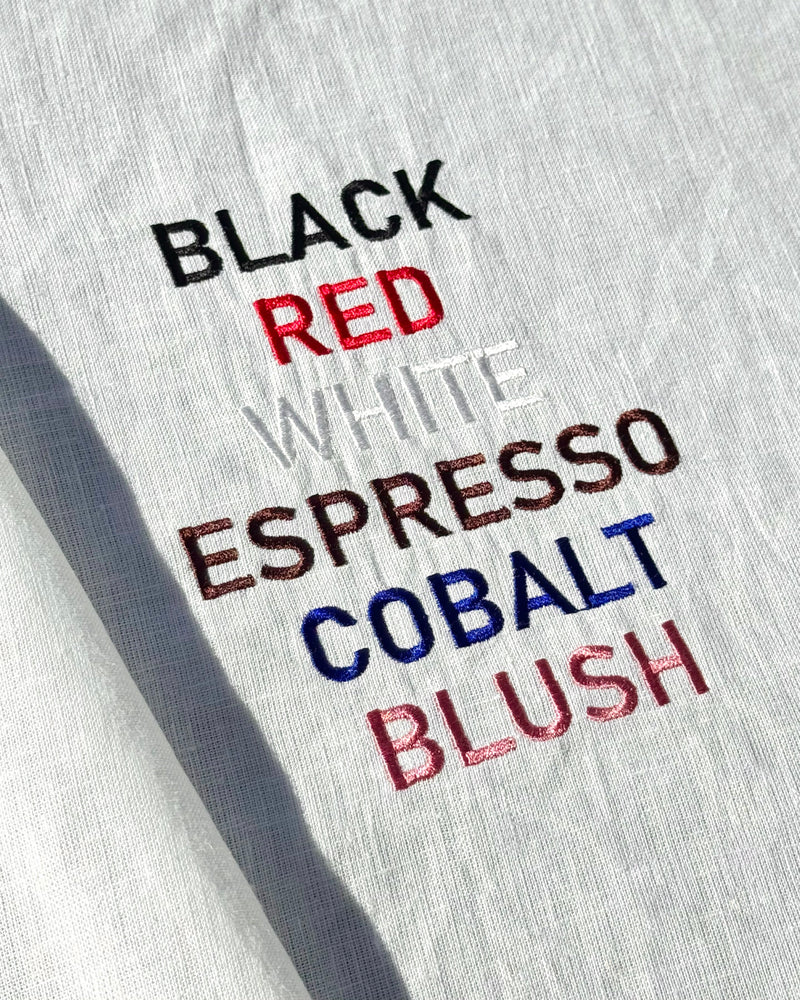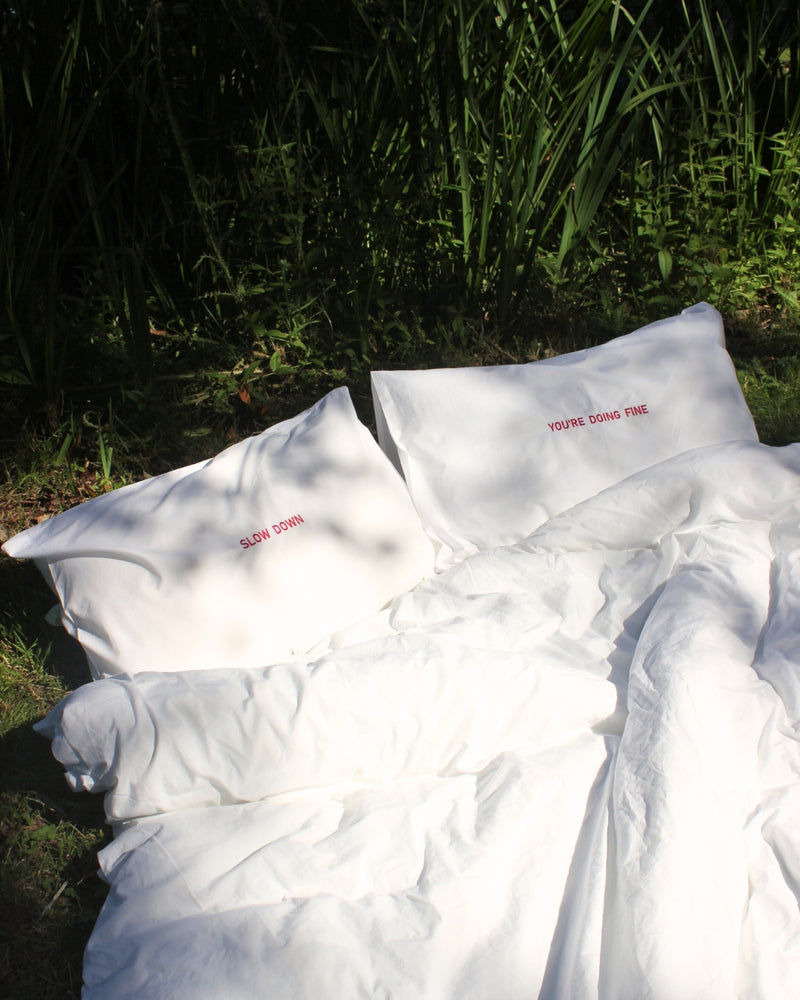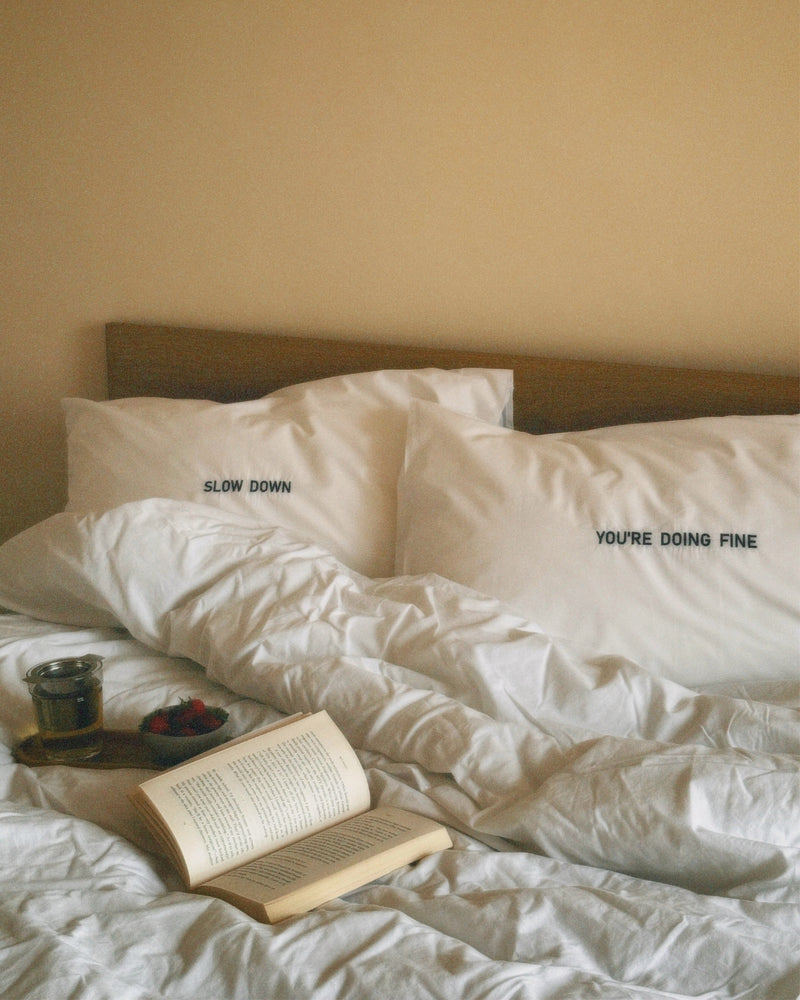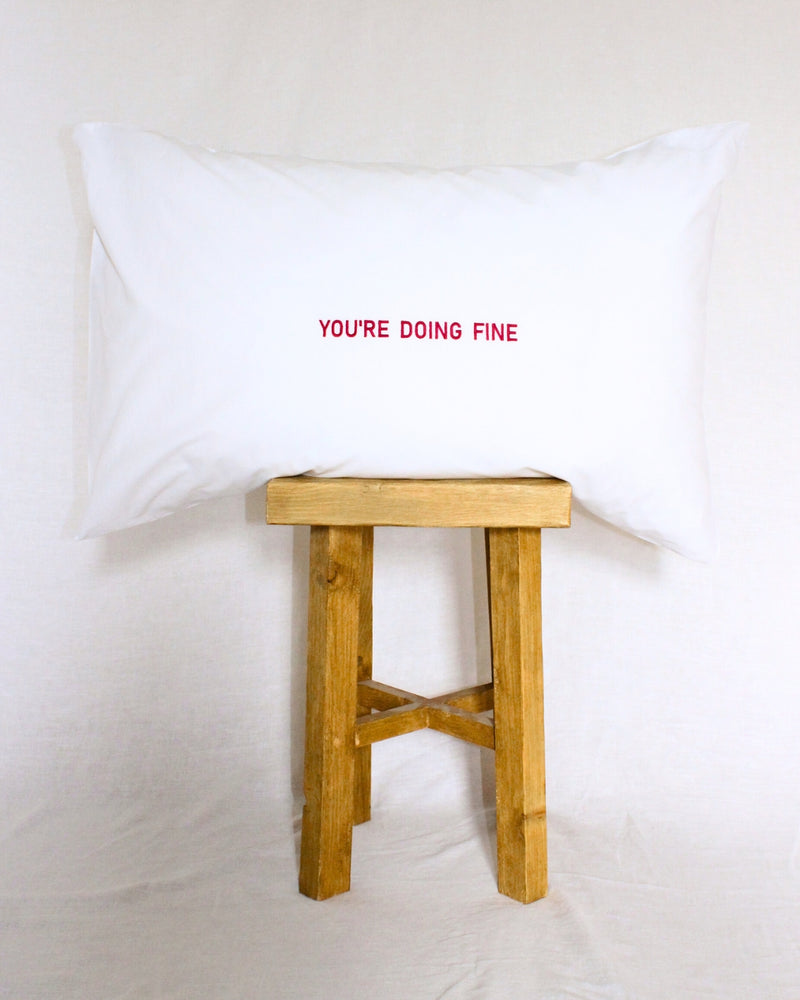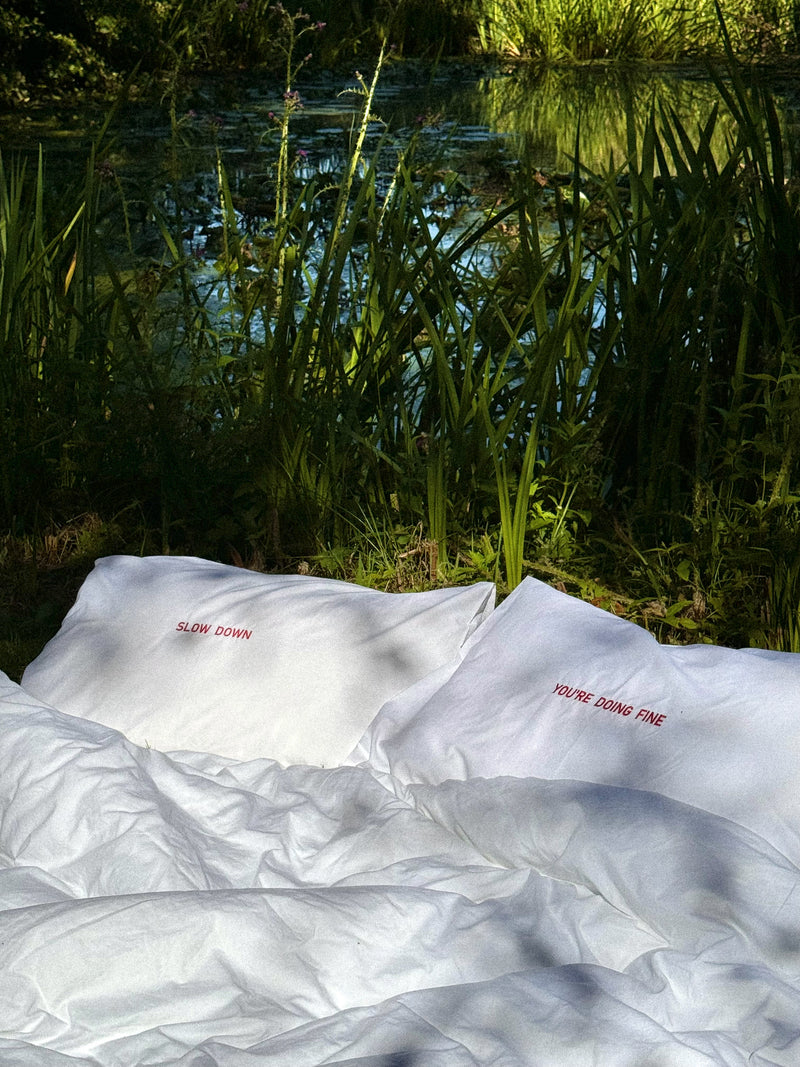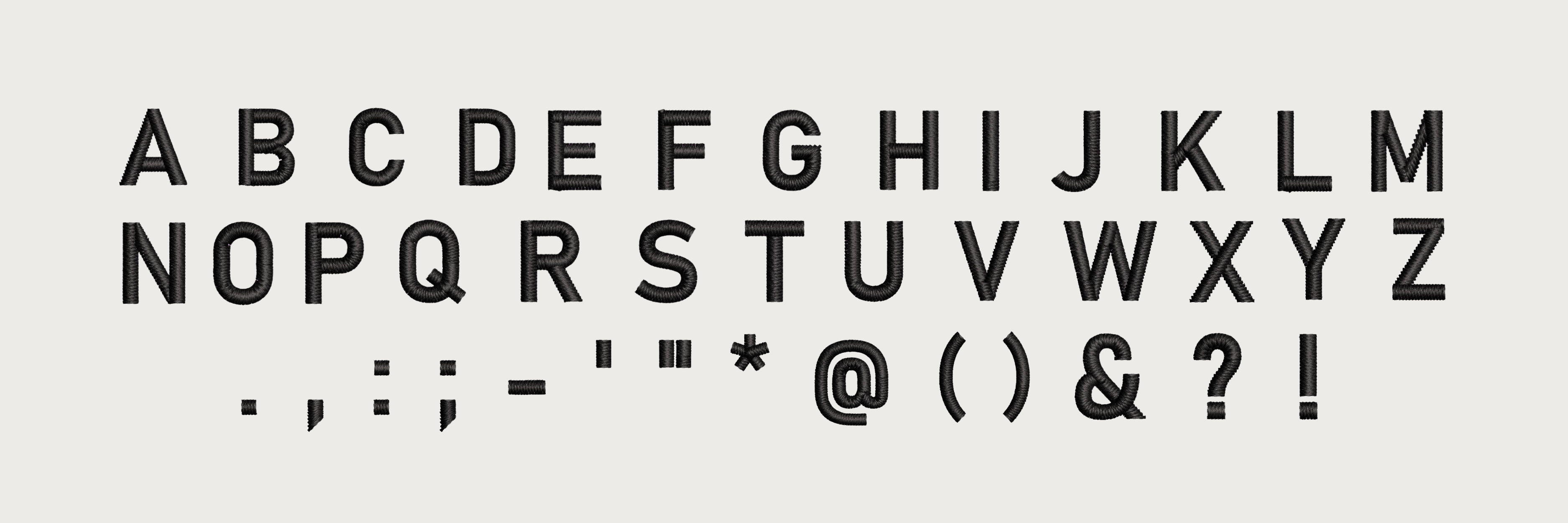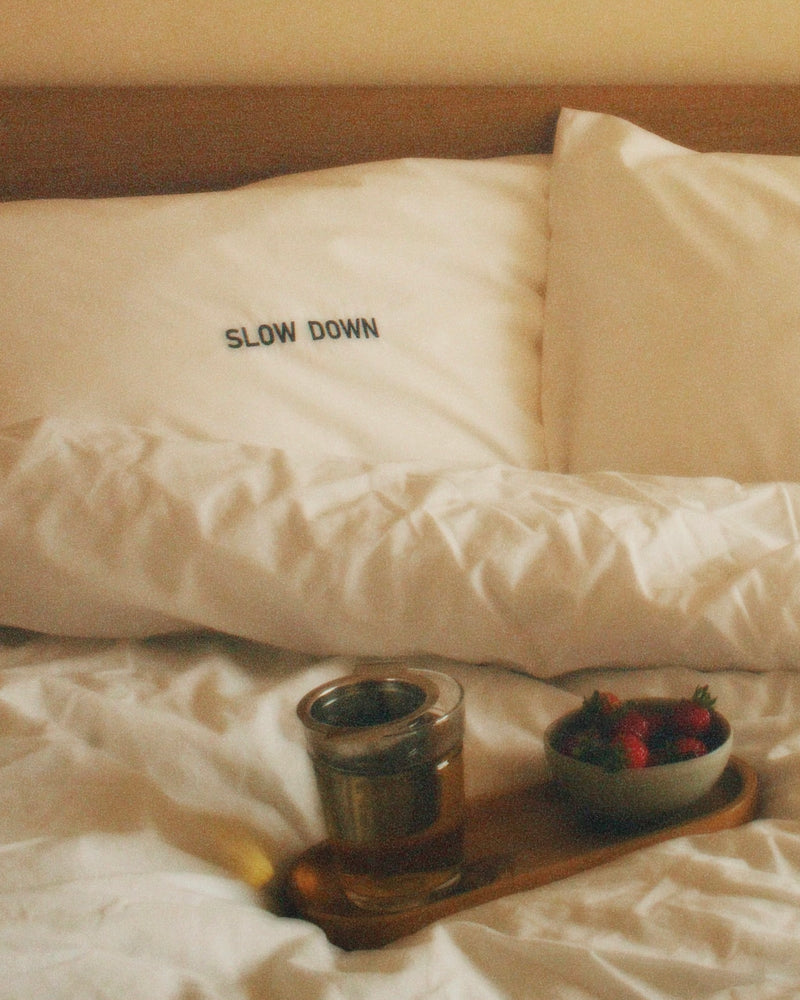
The Monica Font
Our custom embroidery font Monica is a simple font that was selected for the minimalists. Browse the full offering of this font below to help you to envision your custom embroidery piece.